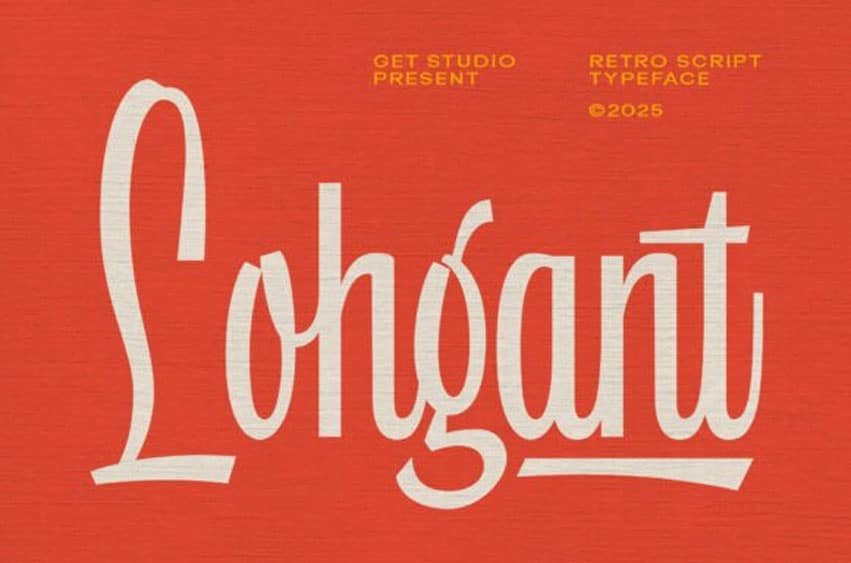
Lohgant Font Add effortless vintage flair and mid-century warmth to your designs with Lohgant, a retro script typeface! Featuring elongated ascenders, sweeping swashes, and a tall, condensed handwritten flow, this font beautifully captures the nostalgic charm of classic signage and mid-century advertising typography.
Whether you’re crafting retro brand identities, vintage packaging, diner menu titles, poster headlines, apparel prints, or social media quotes, Lohgant brings a stylish, authentic handwritten character that demands attention.